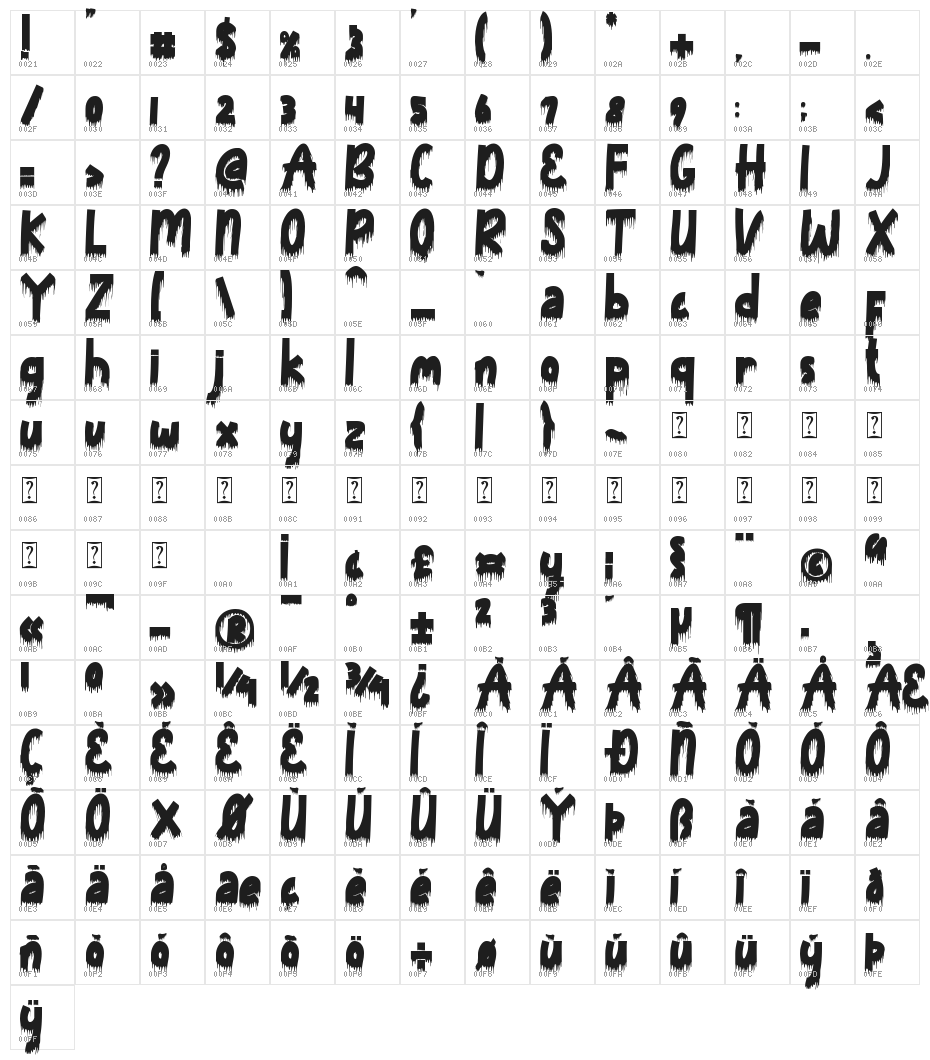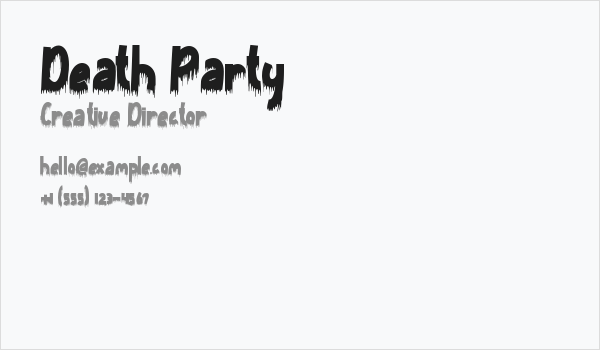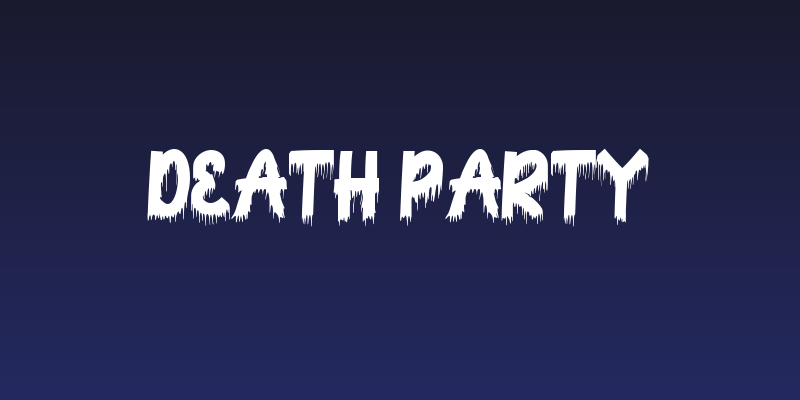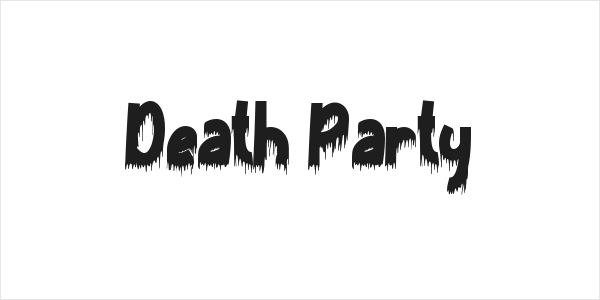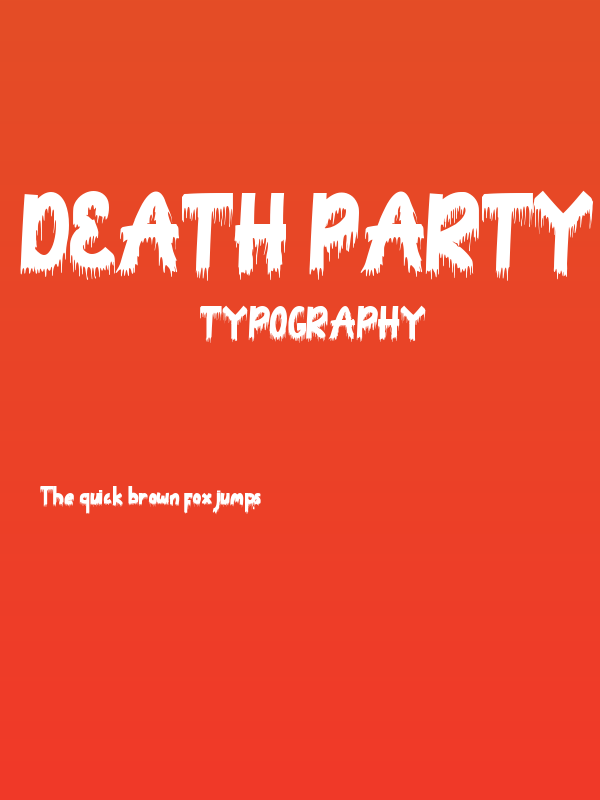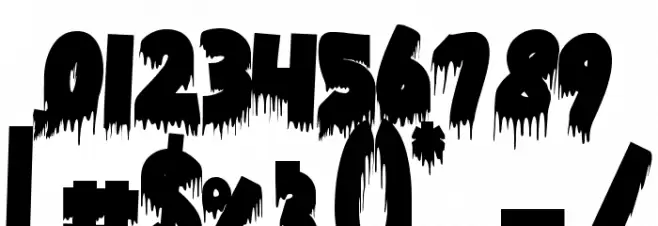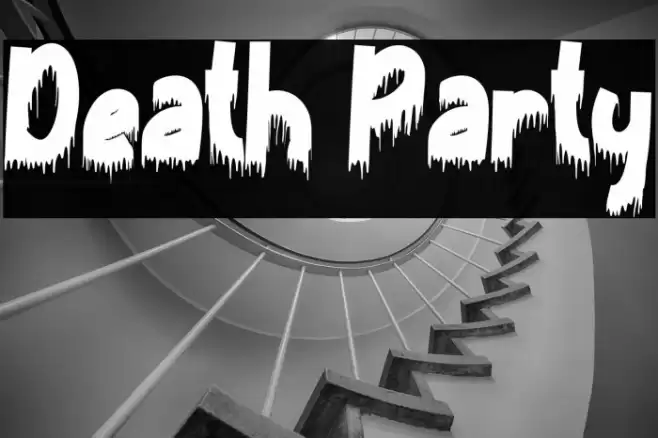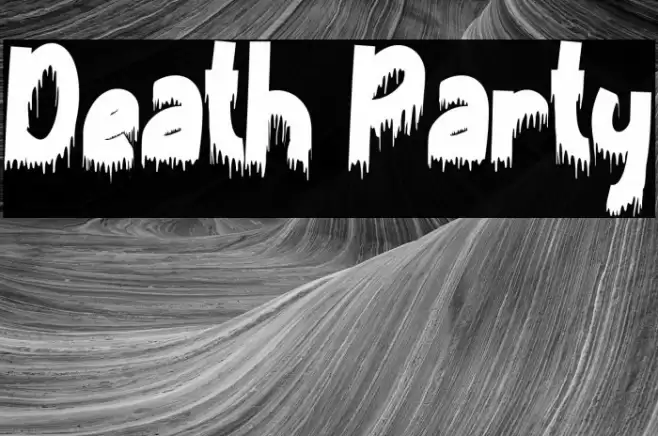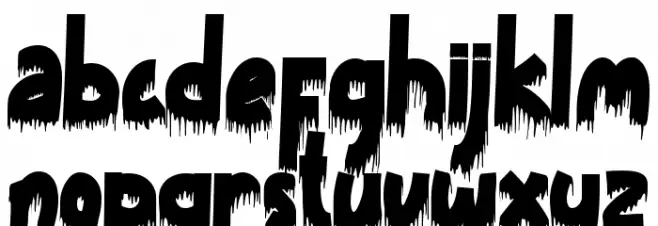
Death Party Font
Death Party Description
This font features a bold and dramatic style with a dripping effect that gives it a spooky and eerie appearance. The uppercase and lowercase letters, as well as numbers and special characters, all exhibit this unique dripping design, reminiscent of melting wax or dripping paint. The bold strokes and irregular edges contribute to its unsettling yet captivating look, making it ideal for themes related to horror, Halloween, or anything requiring a touch of the macabre. The font's distinctiveness lies in its ability to convey a sense of mystery and suspense, making it a perfect choice for creating eye-catching headlines or thematic designs.
| Use Case | Headlines, Logos, Themed Designs |
| Proposed Projects | Perfect for Halloween party invitations, horror movie posters, themed event flyers, and spooky merchandise designs. |